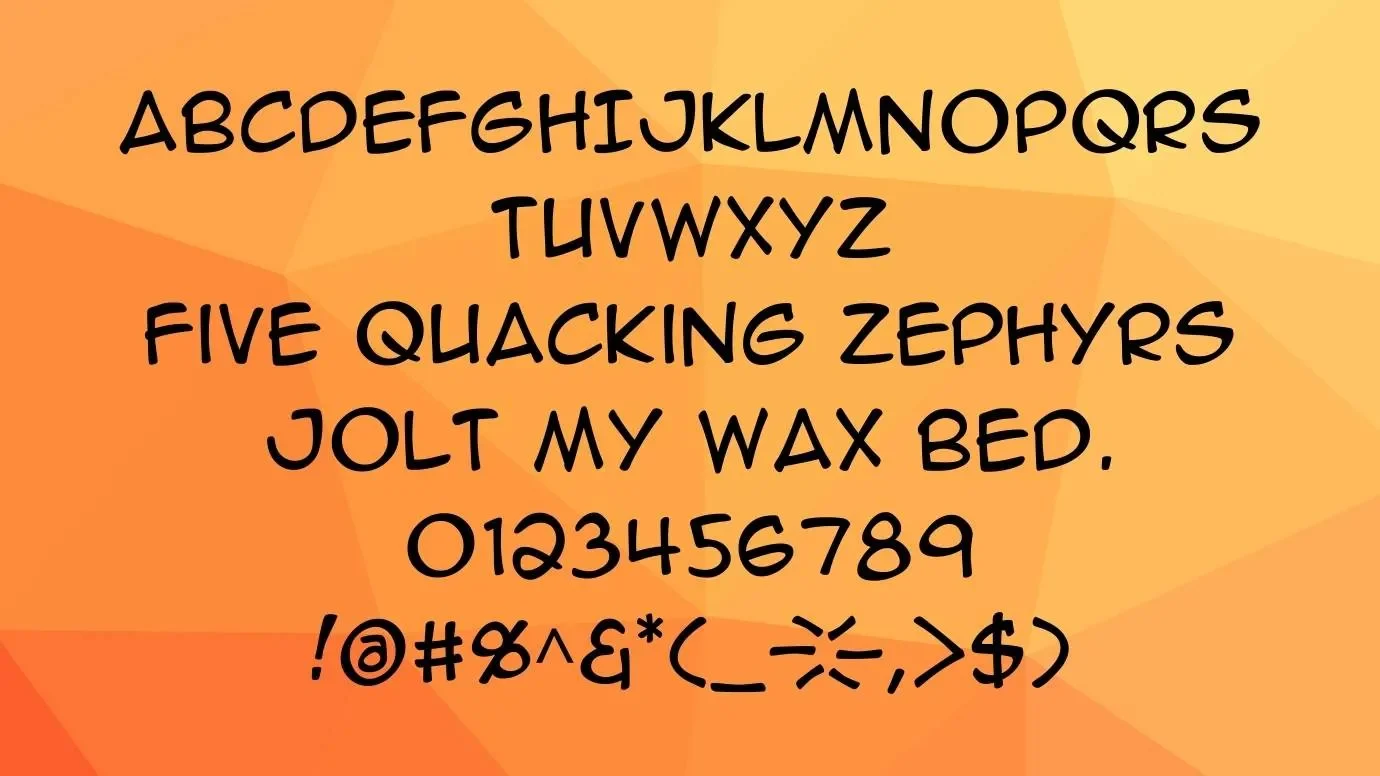
Anime Ace Font is a modern and stylish typeface. It comes in the fancy category that was designed by việt hóa and shared by Blambot. This font has attractive 110 glyphs along with 1024 units/em. Its free version is so famous around all over the world. The handy drawn characters of this font have been so helpful in designing purposes.
The maximum height of the characters of this font is 1129 and the maximum width is 1040. The TTF format of this typeface is great for different design purposes. This font comes in bold and italic strokes that are best for many comic designs. Its procreate version is also free for private purposes.
Reason to Use Anime Ace Font
This tremendous font has many uses that are best for increasing the beauty of your designs. Many graphic designers use this font for mug designs, wall murals, certificate designs, and image designs. This marvelous font family is suitable for catalog designs, thumbnail designs, name designs, and theme designs.
This attractive font is also suitable for making book covers, gift card designs, and invoices. A lot of designers use this gorgeous typeface for t-shirt printing, label designs, and blouse designs. Its free version is best for pairing with the amorous font that has thin and fancy look letters.
You can use this font for giving an effective result to its client’s projects. It is also perfect for use in stylish heading purposes. You can pick it for your homeware designs, fabric designs, and printing projects.
Anime Ace Font Family (Includes Total 01 Types)
- Anime Ace Regular
Who is the creator of Anime Ace Font?
This font was created by việt hóa and published by Blambot. It is a fancy-type font that has fancy and comic-style characters.
Is there any similar font to Anime Ace Font?
A large number of fonts are similar to this fancy font family but eyesy font is the most alternative typeface to this font family.